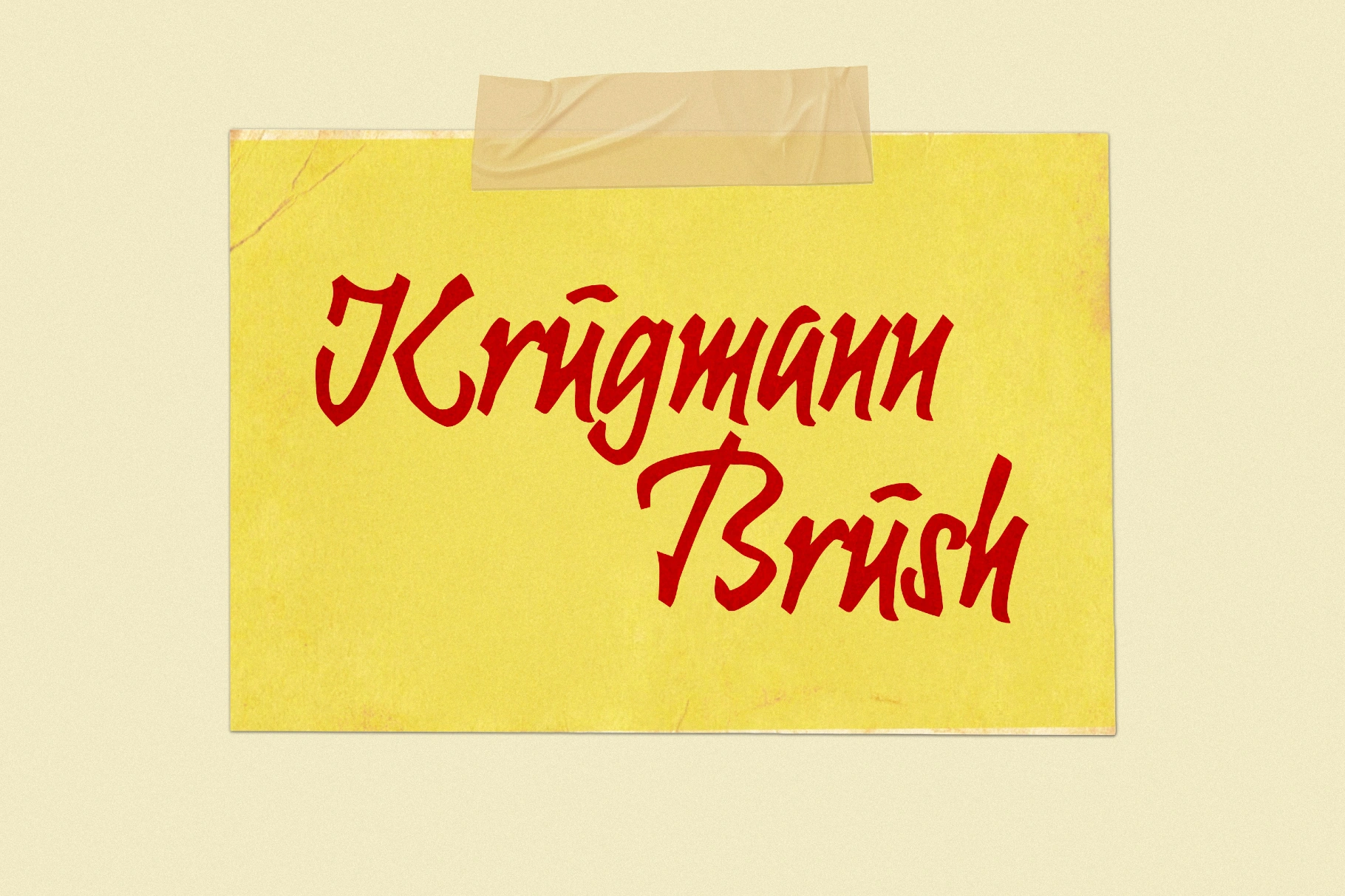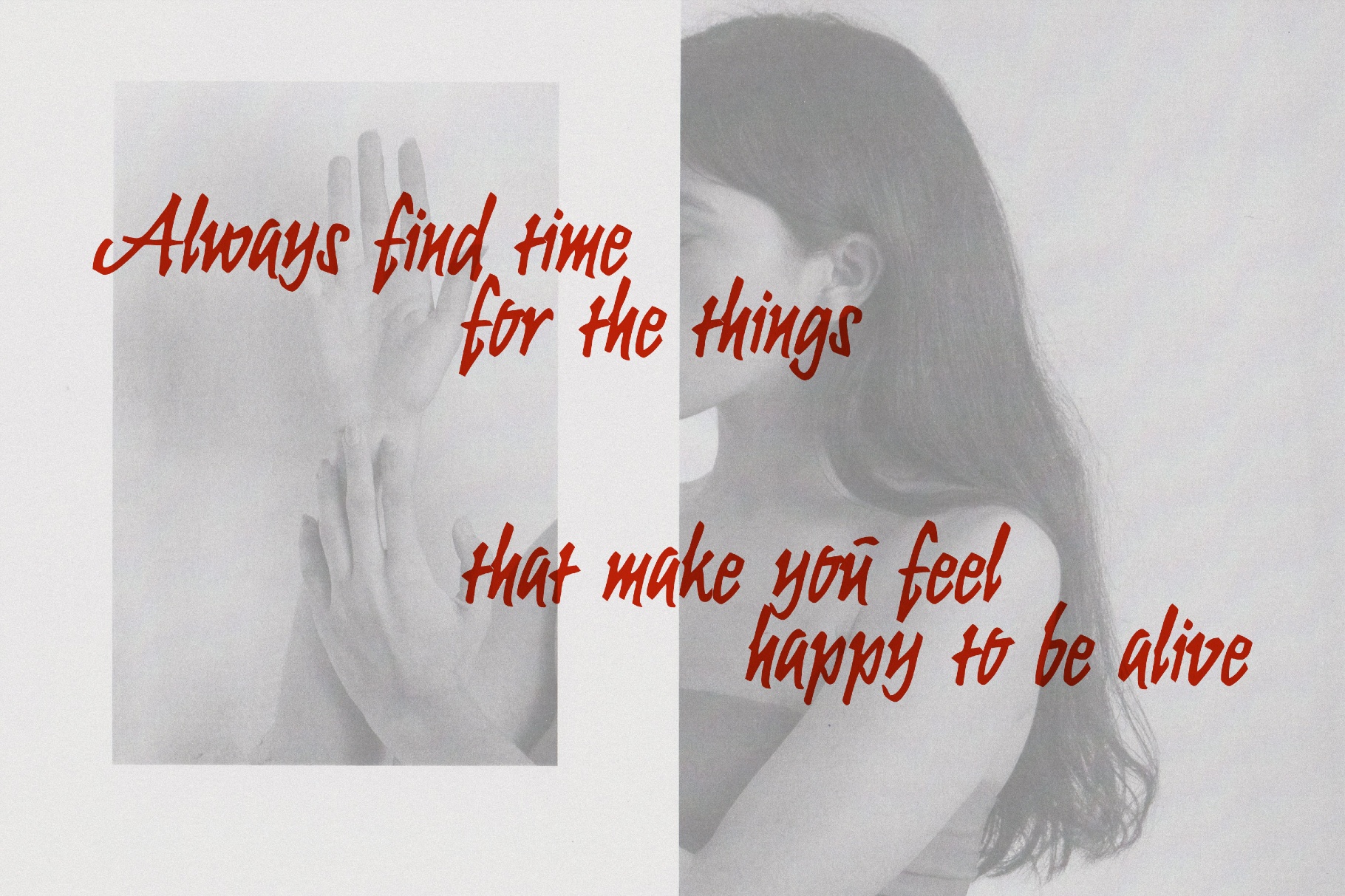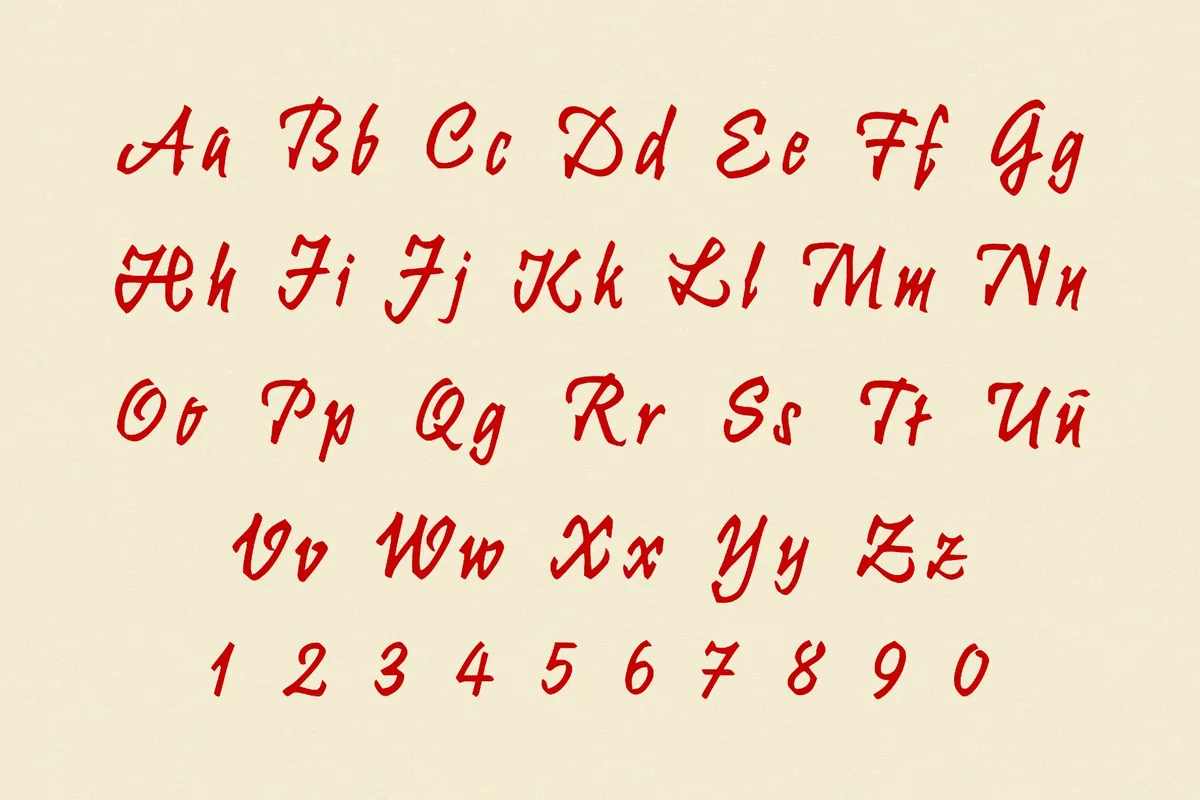
Krugmann Brush Font
KrugmannBrush
Krugmann is a bristled signature font with gritty edges, bold pressure shifts, a street-poster attitude, and hand-painted sports banners. It shines in editorial headlines, album covers, streetwear graphics, café menus, sports branding, social ads, and packaging accents.
- Multilingual support across an extended Latin script.
- Ligatures.